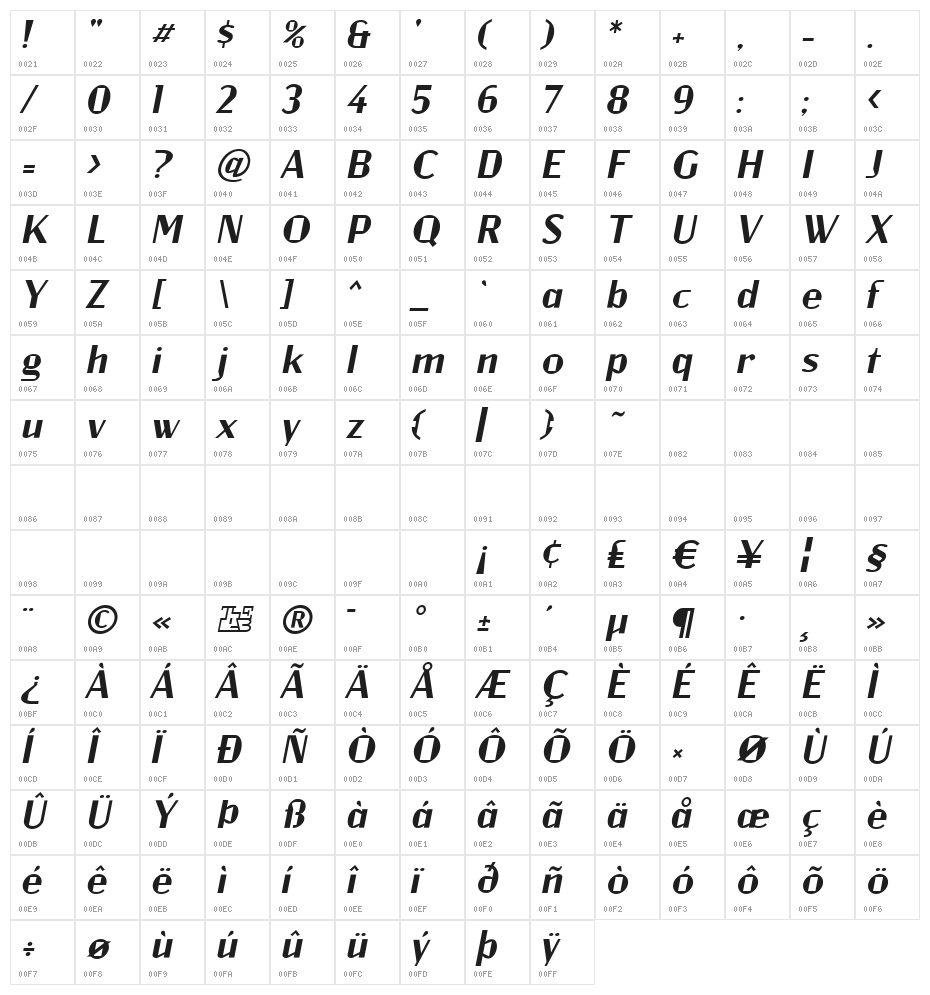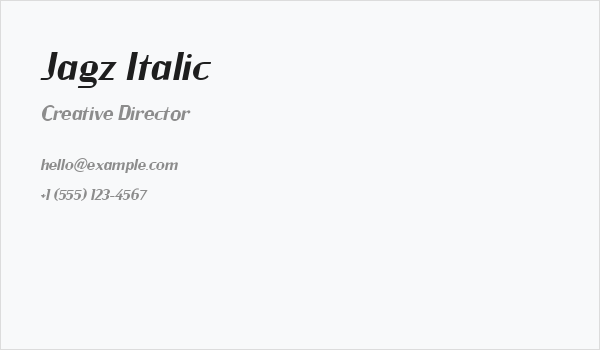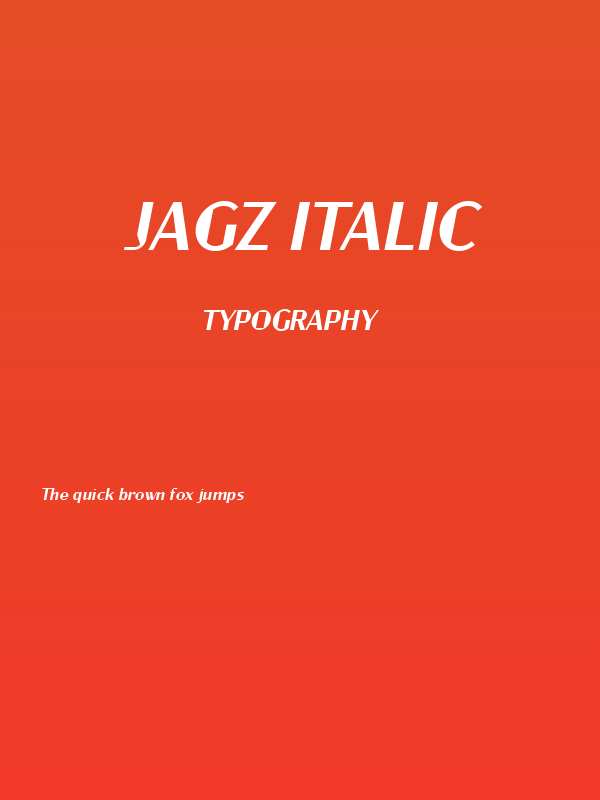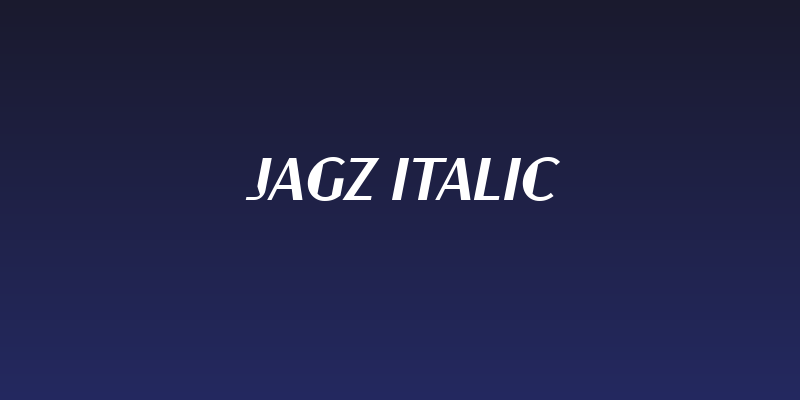
Jagz Italic Font
Jagz Italic Description
This font features a dynamic and modern italic style, characterized by its sleek and angular letterforms. The uppercase and lowercase letters maintain a consistent slant, giving a sense of motion and energy. The numerals are bold and distinct, ensuring clarity and readability. Special characters are designed with the same angular precision, making them stand out. The overall appearance is clean and professional, suitable for a variety of design applications.
| Proposed Projects | Ideal for branding, advertising, and editorial design where a modern and energetic feel is desired. |